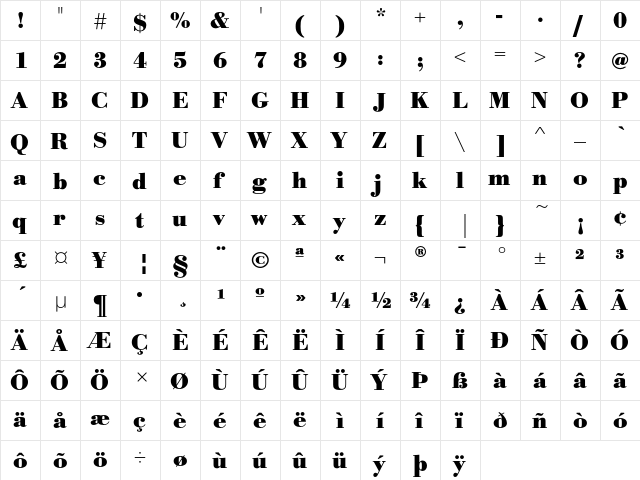
BodoniEF Bold Font Preview
BodoniEF Bold
BodoniEF Bold Font Details
Design Context for BodoniEF Typeface
BodoniEF takes a measured approach to typography — its balanced proportions and neutral character make it a reliable workhorse for both digital and print work. The heavy weight commands attention and anchors typographic hierarchies.
Pro Tip: Use BodoniEF in both headline and body roles to test its range before committing to a single application.